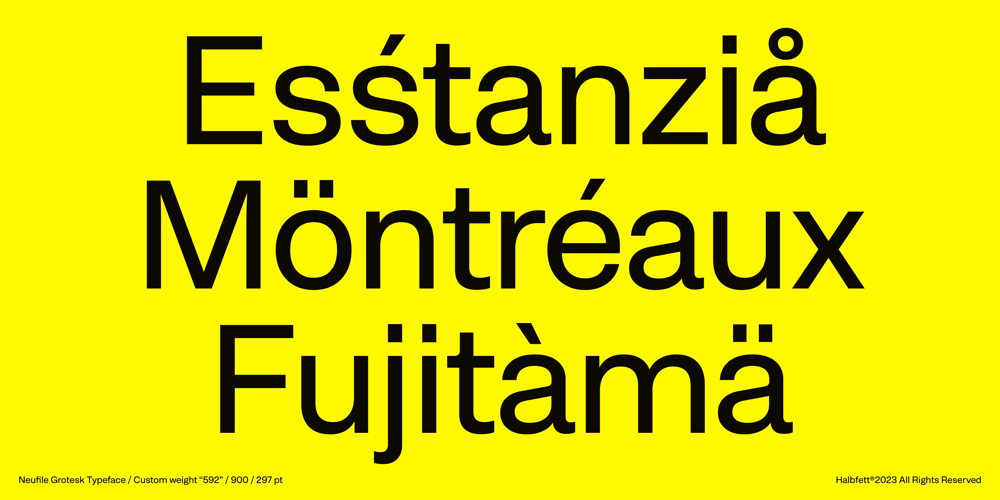
Neufile Grotesk Font Family was designed by Deni Anggara and published by Halbfett. Neufile Grotesk contains 9 styles and family package options. Neufile Grotesk has its roots in some of the earliest commercially available sans-serif typefaces. This highly legible sans-serif design is well-suited for many display and text-based typographic uses. Users can apply the fonts effortlessly to a large number of messages and media, from advertising to book design. The typeface family ships in two different formats. Depending on your preference, you can install the typeface as a single Variable Font or use the family’s eight static OpenType font files instead. Those weights run from Extralight through Black. While the static-format fonts offer a good intermediary-step selection, users who install the Variable Font have vastly greater control over their text’s stroke width. The Neufile Grotesk Variable Font’s weight axis allows users to differentiate between almost 1,000 possible font weights. That enables you to fine-tune your text’s exact appearance on-screen or in print. But even the eight static fonts satisfy the need for flexibility, creating harmonious variations of texture and emphasis. Whichever format you choose, the Neufile Grotesk fonts include several sophisticated OpenType features. In addition to standard ligatures, there are a few discretionary ligatures and a stylistic set replacing “a”, “g”, and “R” with geometric-sans-style forms. Other features include numeral variants – there are proportional and tabular versions of lining figures and oldstyle figures – as well as fractions and numbers in circles. The fonts have arrows and a feature for setting case-sensitive forms, too.